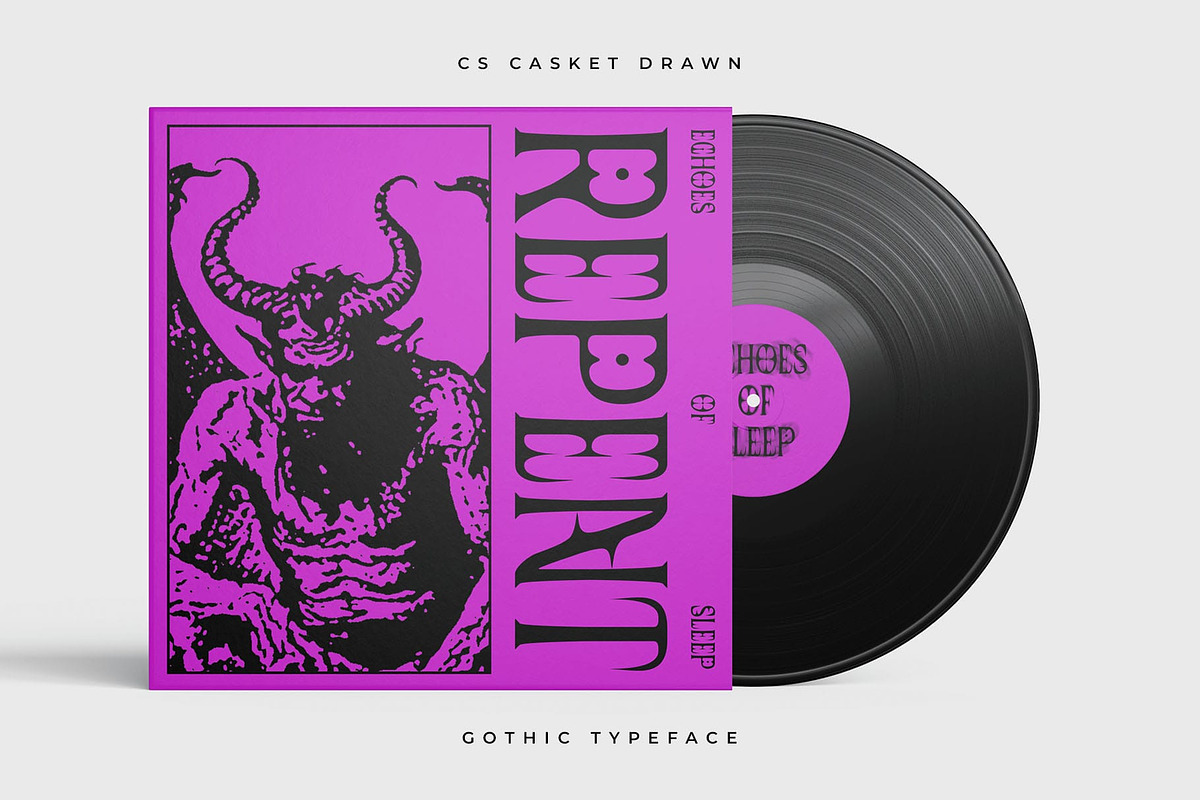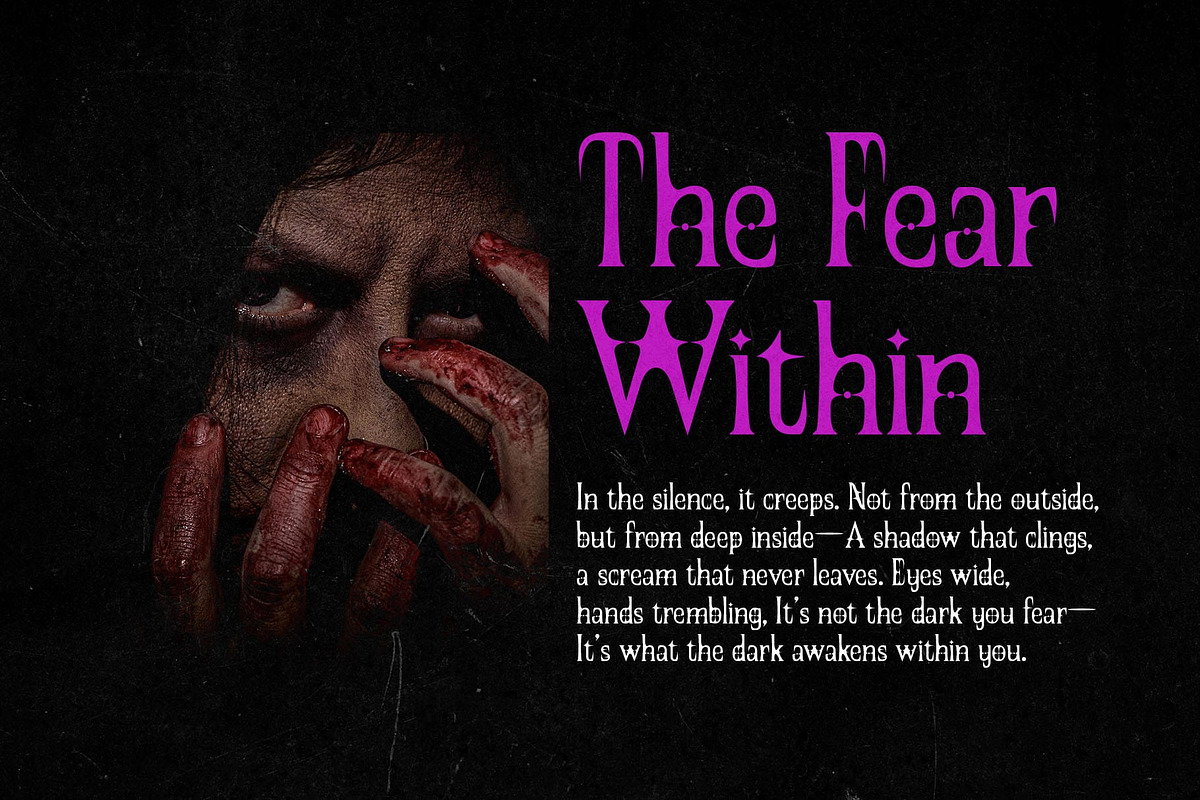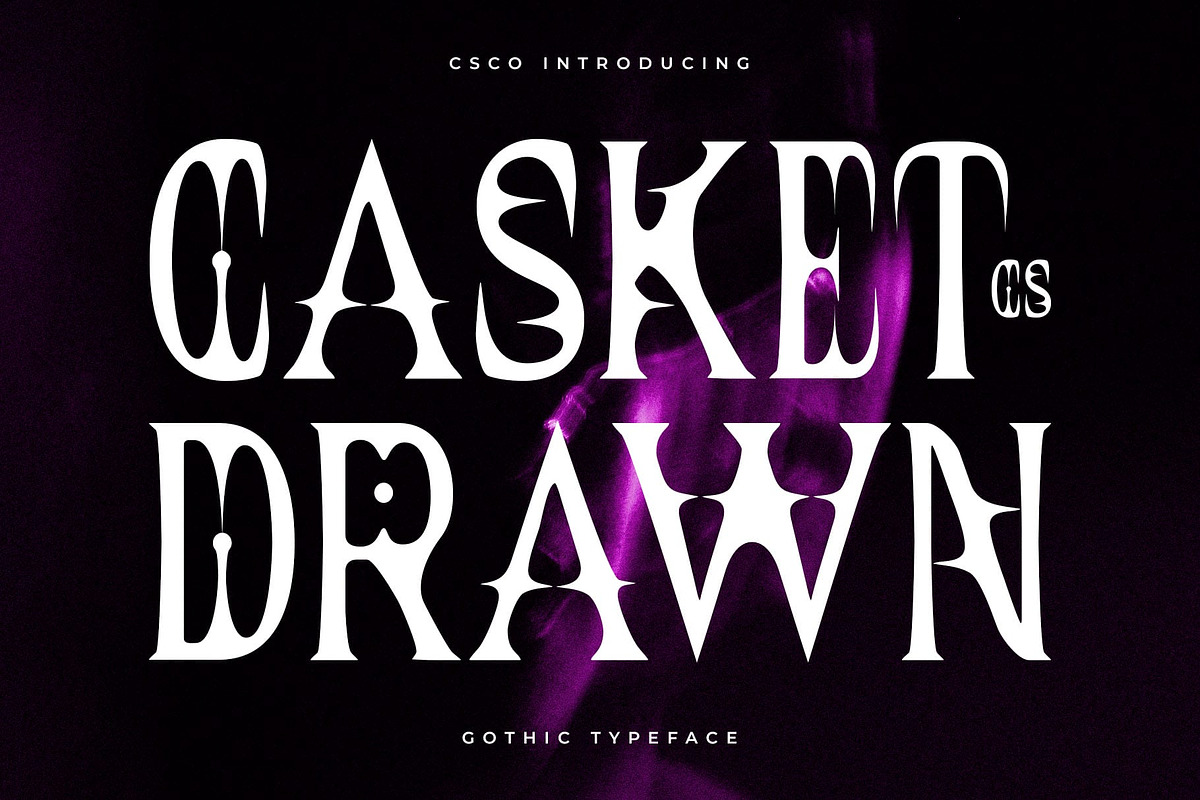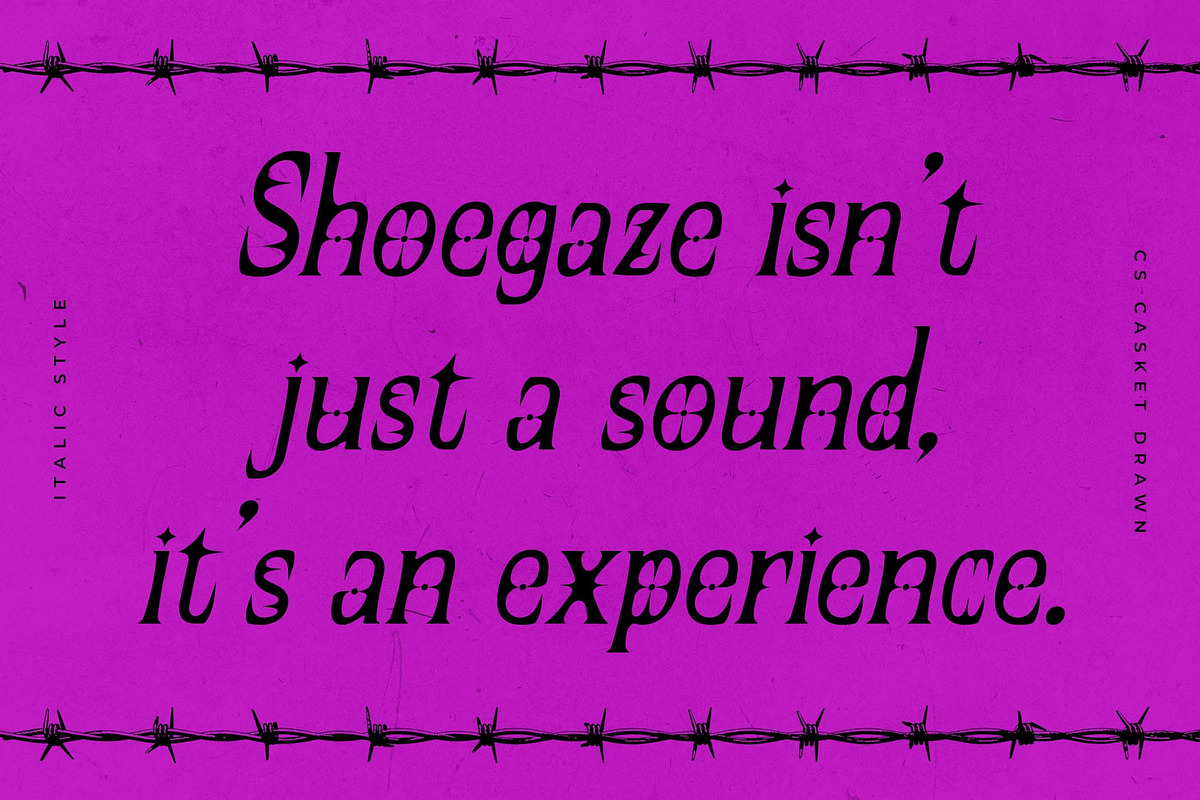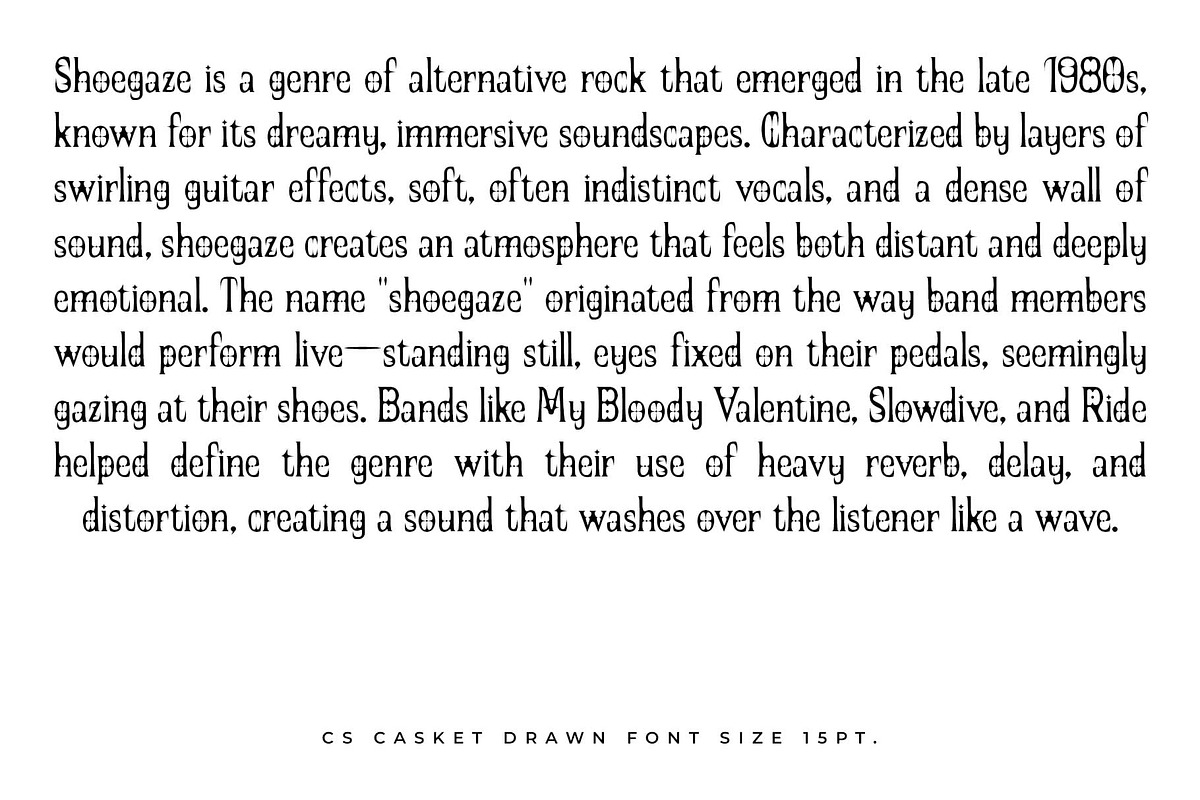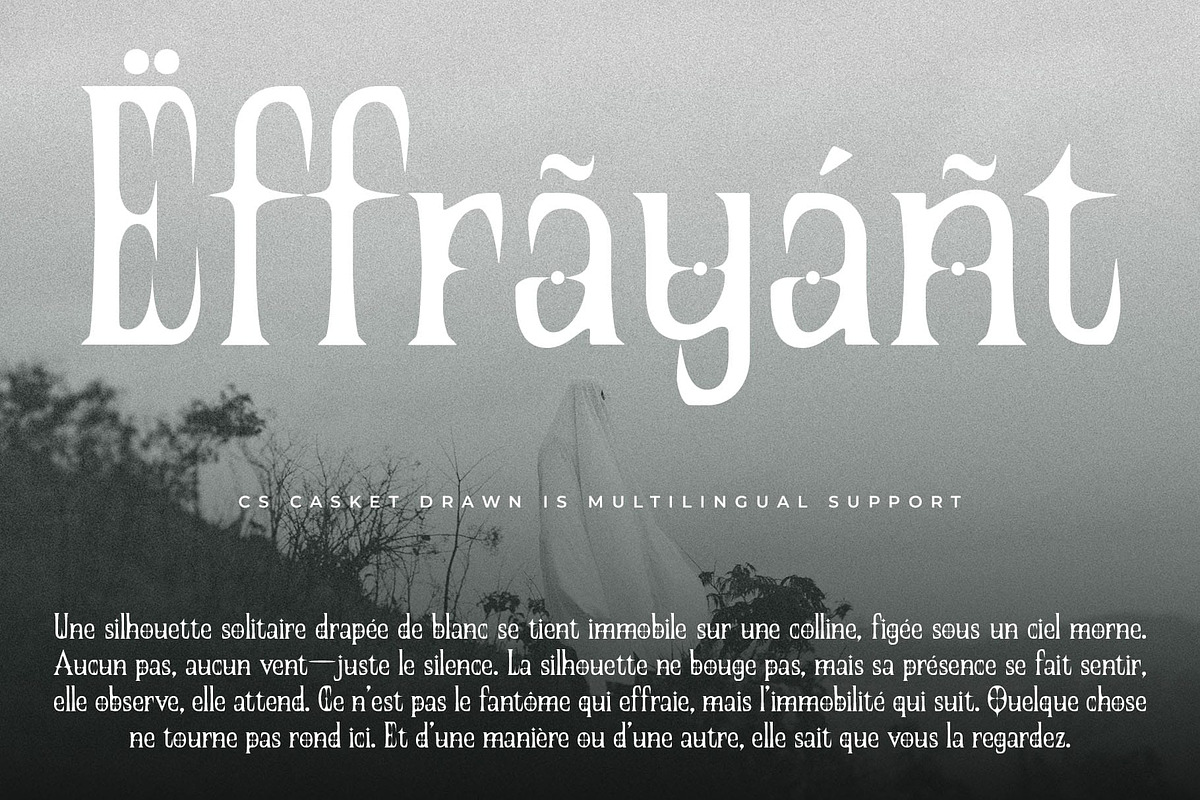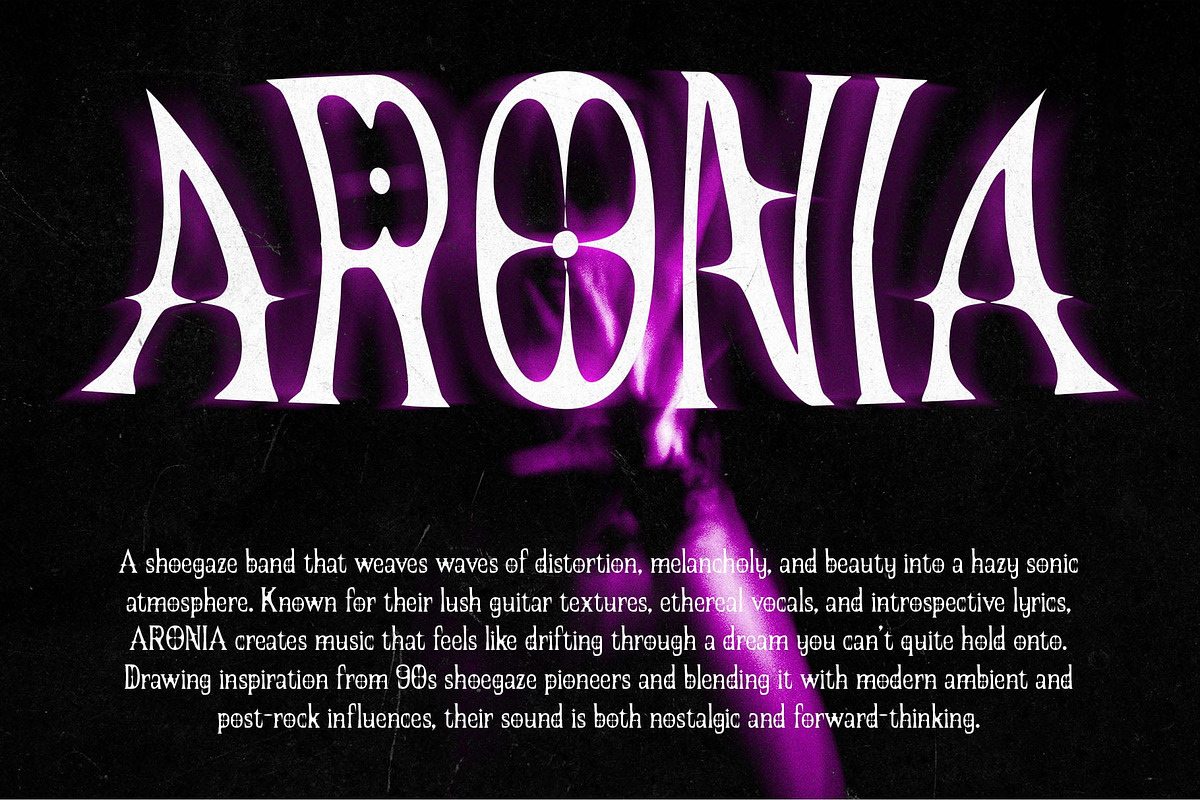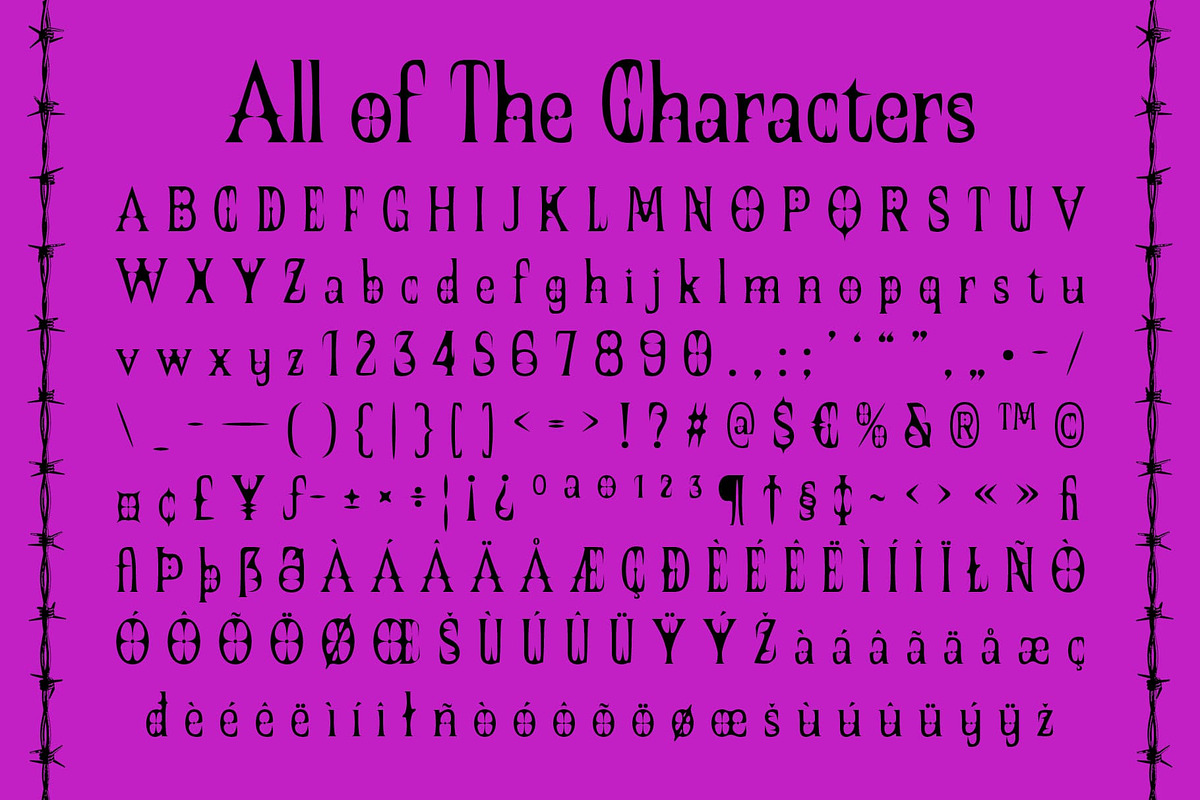
CS Casket Drawn
CS Casket Drawn – Where Gothic Tradition Meets Artistic Rebellion
Modern Gothic Style with Ornamental Flair CS Casket Drawn is a display serif font that embodies a bold modern gothic character. Its thick, decorative letterforms are inspired by traditional blackletter and Gothic influences but refreshed with sleek, contemporary styling to suit today’s bold visual culture.
Hand-Drawn Texture for Raw Expression The distinctive drawn effect adds a handcrafted, sketch-like quality that softens its formal structure with artistic imperfection. This creates a font that feels expressive, raw, and personal—perfect for breaking away from sterile digital design.
Aesthetic Contrast of Darkness and Creativity Blending mystery with creativity, this cool font captures the spirit of alternative fashion, underground music, and subcultural aesthetics. It radiates a tone that is at once dark, stylish, and full of emotion.
Ideal for Bold and Eccentric Visual Projects Whether you’re designing posters, music covers, avant-garde editorials, or fashion-forward branding, this artistic font offers a unique voice. It’s the perfect choice for creators who want their designs to be daring, unconventional, and rich with visual identity. Whether you’re crafting music posters, fashion lookbooks, dramatic editorials, or branding with a gothic or experimental identity, this mysterious font delivers a distinctive look that stands out. It’s perfect for projects that demand strong visual impact while remaining rich in character, emotion, and artistic authenticity.